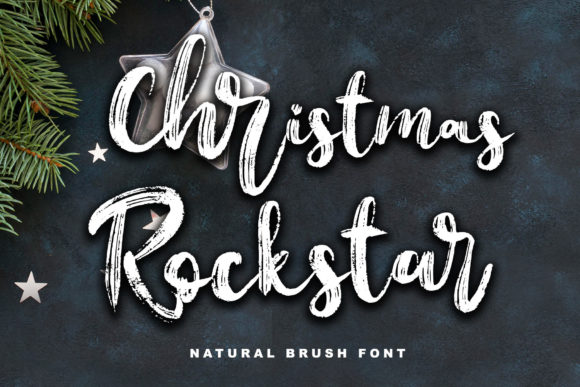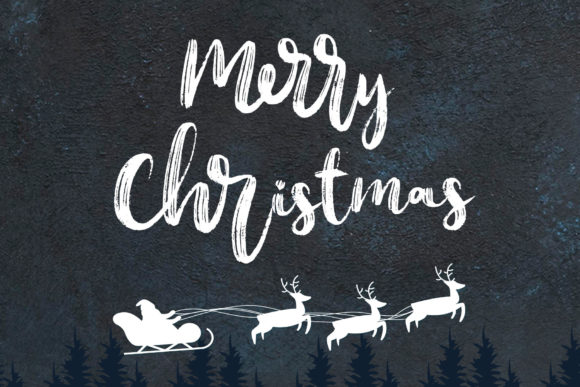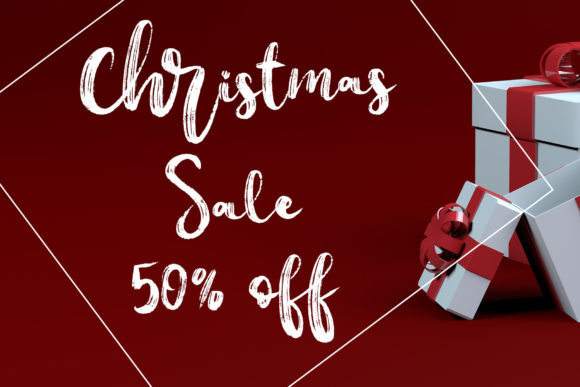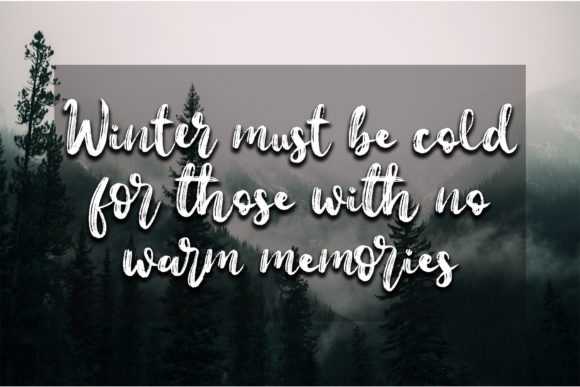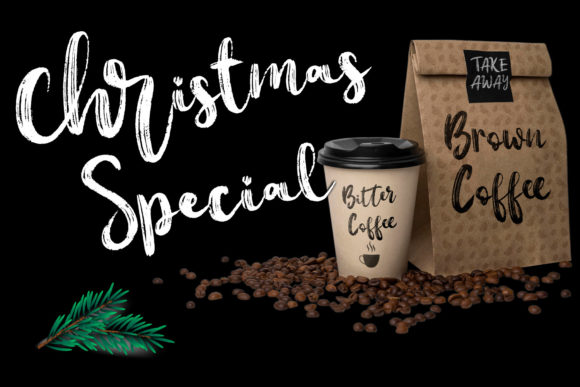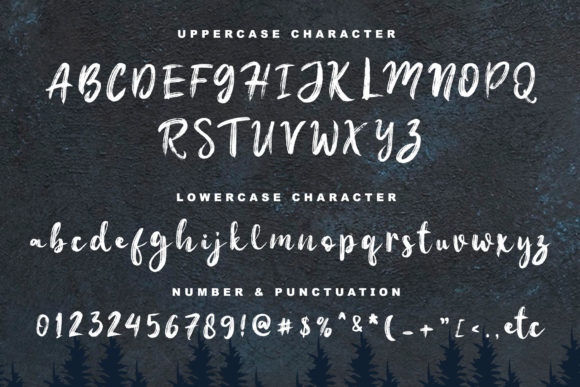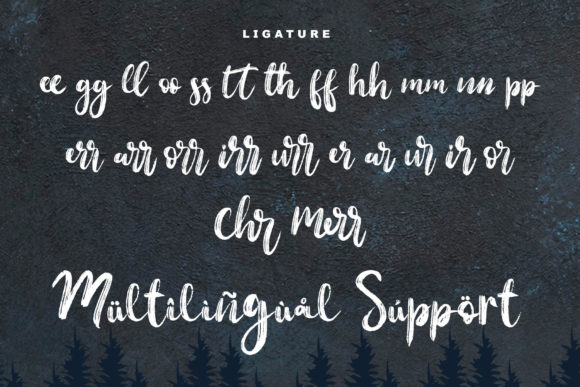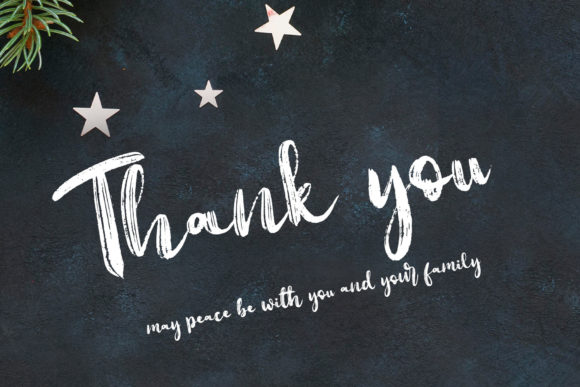
Christmas Rockstar Font
About Christmas Rockstar Font
Christmas Rockstar is a lovely and brushed script font that exudes elegance and class. This font was particularly crafted for those who need a beautiful and refreshing look to their designs.
Christmas Rockstar is PUA encoded which means you can access all of the glyphs and swashes with ease!